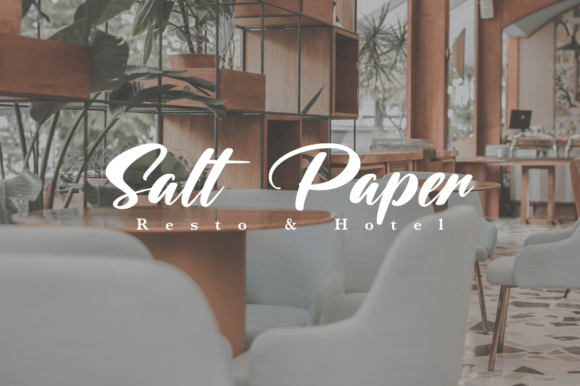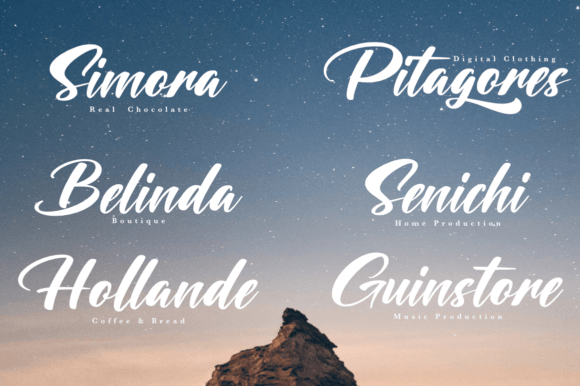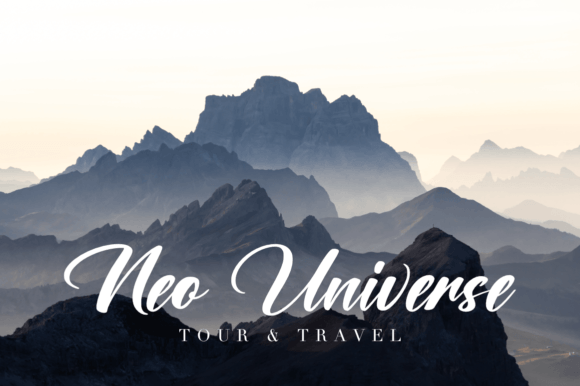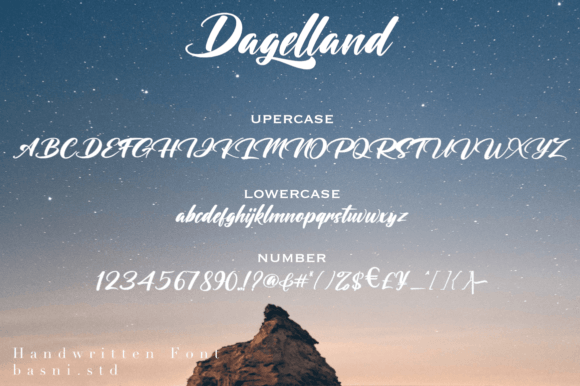
Discover the Charm of Dagelland Font: Elevate Your Designs with a Touch of Elegance
In the world of typography, a well-crafted font can make all the difference in elevating your design to the next level. For designers, crafters, and creative enthusiasts, finding the perfect font that resonates with their project’s tone and style can be a daunting task. However, if you’re looking for a natural, handwritten font that exudes elegance and sophistication, look no further than Dagelland Font.
What is Dagelland Font?
Dagelland Font is a beautiful, natural handwritten font designed to add a personal touch to your creative projects. Its unique, flowing script is perfect for a wide range of applications, including branding, websites, invitations, editorials, and more. With Dagelland, you can add a dash of personality to your designs, making them stand out from the competition.
Key Features of Dagelland Font
- Natural Handwritten Style: Dagelland Font boasts a genuine, handwritten look that’s perfect for creating a personal connection with your audience.
- Versatile: Use Dagelland for various design projects, from elegant branding and websites to beautiful invitations and editorials.
- Elegant and Sophisticated: The font’s flowing script and delicate lines add a touch of sophistication to any design.
- Easy to Read: Despite its elegant nature, Dagelland Font remains highly legible, making it perfect for body text and headlines.
Why Choose Dagelland Font?
With so many fonts available, why should you choose Dagelland for your next project? Here are a few compelling reasons:
- Unique and Memorable: Dagelland Font’s distinctive style ensures your designs will be remembered and noticed.
- Time-Saving: With Dagelland, you can quickly create stunning designs without spending hours searching for the perfect font or tweaking settings.
- High-Quality: Dagelland Font is crafted with attention to detail, ensuring a crisp and clean appearance in any design.
How to Use Dagelland Font in Your Designs
Incorporating Dagelland Font into your creative projects is easy. Here are some ideas to get you started:
- Branding: Use Dagelland as a logo font or for typography to add a touch of elegance to your brand’s identity.
- Websites: Add Dagelland to your website’s design for a unique and memorable user experience.
- Invitations: Create beautiful, eye-catching invitations for weddings, parties, or events with Dagelland Font.
- Editorials: Use Dagelland for article titles, headings, or quotes to add a touch of sophistication to your editorial designs.
Tips for Getting the Most Out of Dagelland Font
To maximize the impact of Dagelland Font in your designs, consider the following tips:
- Experiment with Colors: Pair Dagelland with a range of colors to create unique and eye-catching designs.
- Mix and Match Fonts: Combine Dagelland with other fonts to create a distinctive typography style.
- Play with Sizes: Use Dagelland in various sizes to create visual hierarchy and add emphasis to your designs.
Dagelland Font is a versatile, elegant, and sophisticated natural handwritten font perfect for a wide range of design applications. With its unique style, ease of use, and high-quality craftsmanship, Dagelland is an excellent addition to any designer’s toolkit. Whether you’re a seasoned professional or just starting out, Dagelland Font is sure to elevate your designs and help you stand out from the competition.